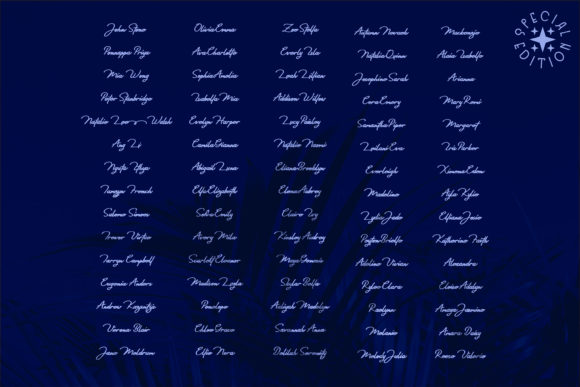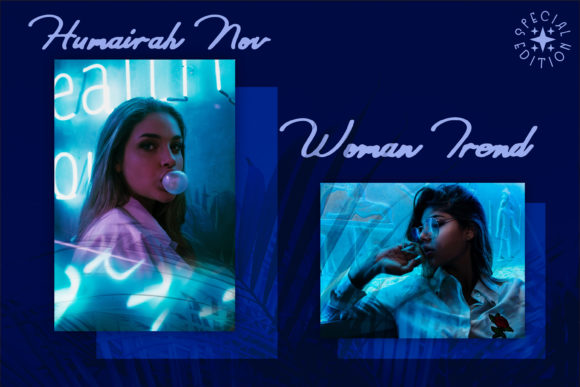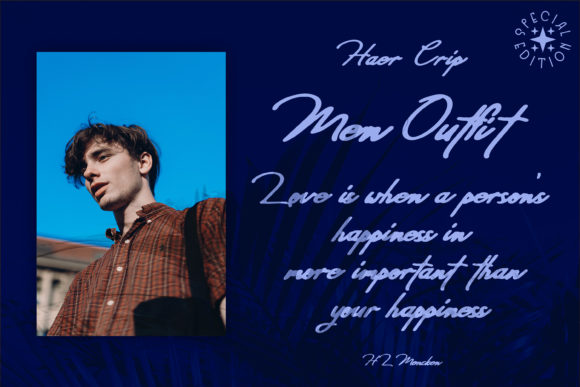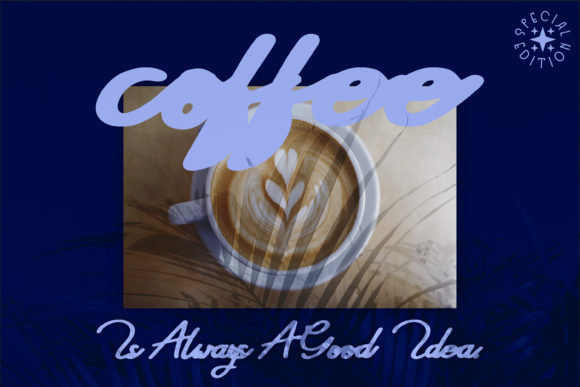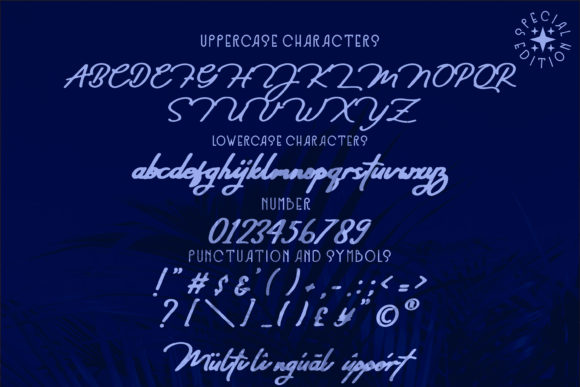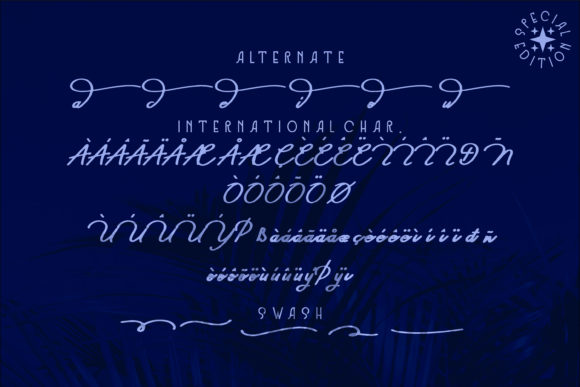
Introduction to Sharon Minari Font
Sharon Minari is a splendid script font, suitable for any projects such as logos, branding projects, homeware designs, product packaging, mugs, quotes, posters, shopping bags, t-shirts, book covers, name cards, invitation cards, greeting cards, labels, photography, watermark, special events, and all your other luxury projects that need a premium signature taste.
Key Features of Sharon Minari Font
Why Choose Sharon Minari Font?
Sharon Minari Font offers exceptional quality and versatility, making it a valuable addition to your design toolkit. Whether you’re creating for personal projects or commercial use, Sharon Minari Font delivers professional results.